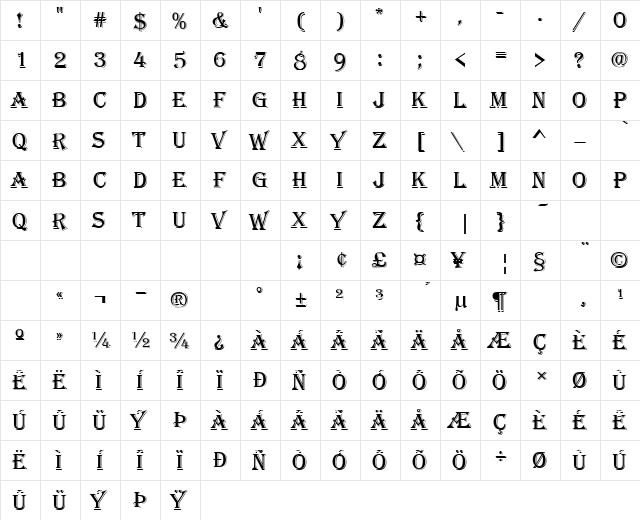
PT Old Fashioned Normal
Design Context for PT Old Fashioned Typeface
PT Old Fashioned is a composed and adaptable typeface that performs quietly and consistently across a wide range of design contexts.